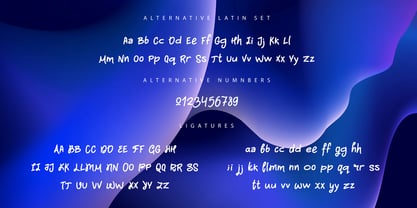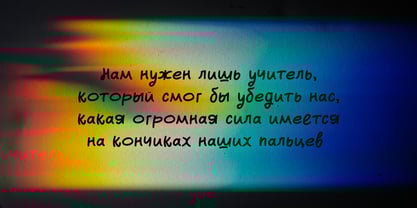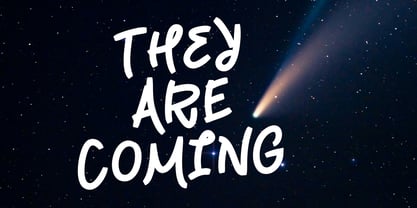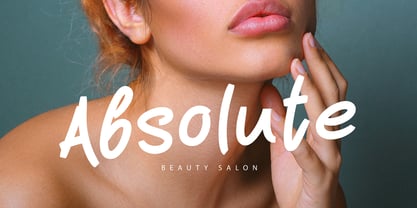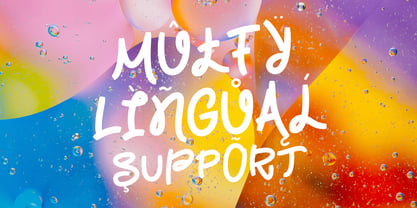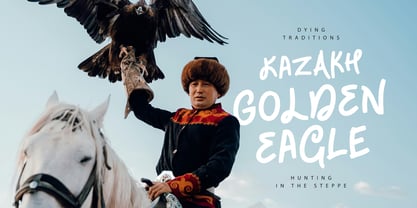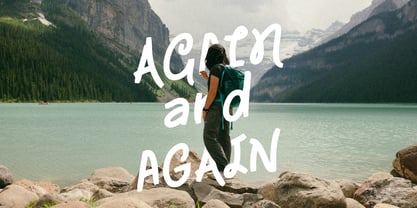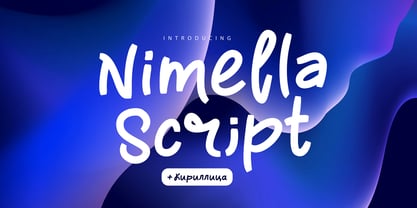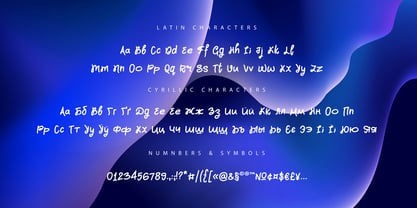
Nimella Script
by Chekart
The Nimella Script Font Family was designed by Ekaterina Chernysheva and published by Chekart. Nimella Script contains 1 styles. More about this family
Nimella Script is a lively, greasy hand brush. The wide, dense rigidity of the stroke is accompanied by soft contour plastic. The feeling of an author's personal handwriting. Nimella Script is a font type that transforms text into a state of not words, but feelings. He is friendly, playful, confident, expressive, trendy 2026. He's not childish. It is feminine-lifestyle with a strong feel of creative creators. Fresh. Informal. Emotional. It sounds loud, but soft. He's confident but friendly. It makes the visual vivid and real. Created for branding, packaging, social media design, logos, beauty and lifestyle projects, posters, quotes and content for creators economy. Perfect for large headlines and emotional visual storytelling. Supports Latin + Cyrillic + Multilingual What’s Inside: - Uppercase & Lowercase letters - Numbers & Punctuation - Alternative Latin and Numbers Set - Multilingual Support - Cyrillic Characters Create a mood. Create energy. Nimella Script — big emotional handwriting for big visual statements.
Designers: Ekaterina Chernysheva
Foundry: Chekart